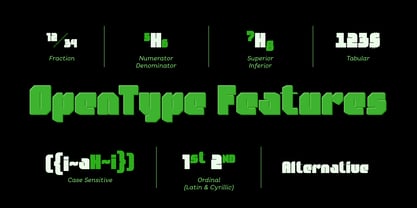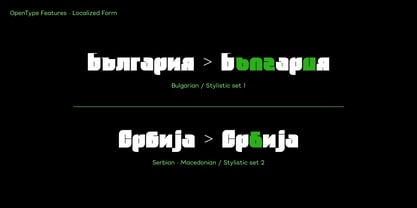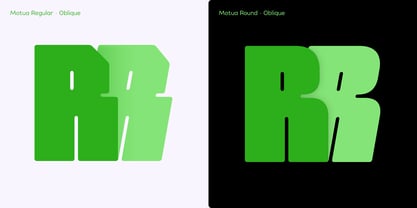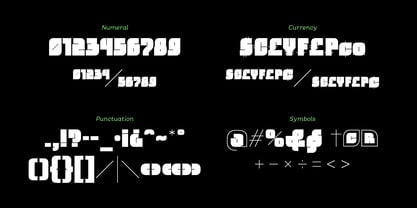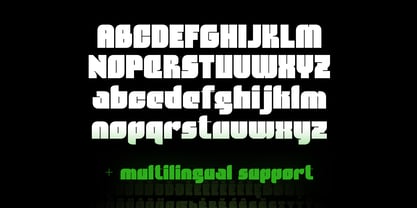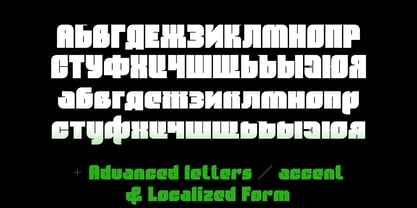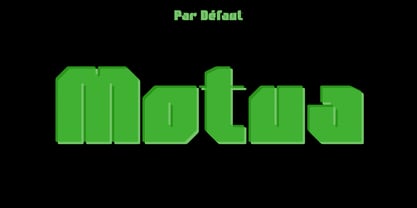
Motua
by Par Défaut
The Motua Font Family was designed by Nathanaël Dorange and published by Par Défaut. Motua contains 4 styles and family package options. More about this family
Motua is a geometric family that includes 4 fonts (Regular / Oblique / Round / Round Oblique).
With more than 700 glyphs, it supports many languages from Latin pro to Cyrillic with localized characters (Bulgarian, Serbian, Macedonian).
There are also 11 OpenType Features to adapt to all situations (Fraction / Numerator / Denominator / Superior - Superscript / Inferior - Subscript / Tabular Figure / Case Sensitive / Ordinal - Latin Cyrillic - Lower & Uppercase / Localized Form / Stylistic Set 01 - 02 / Alternative).
Designers: Nathanaël Dorange
Foundry: Par Défaut